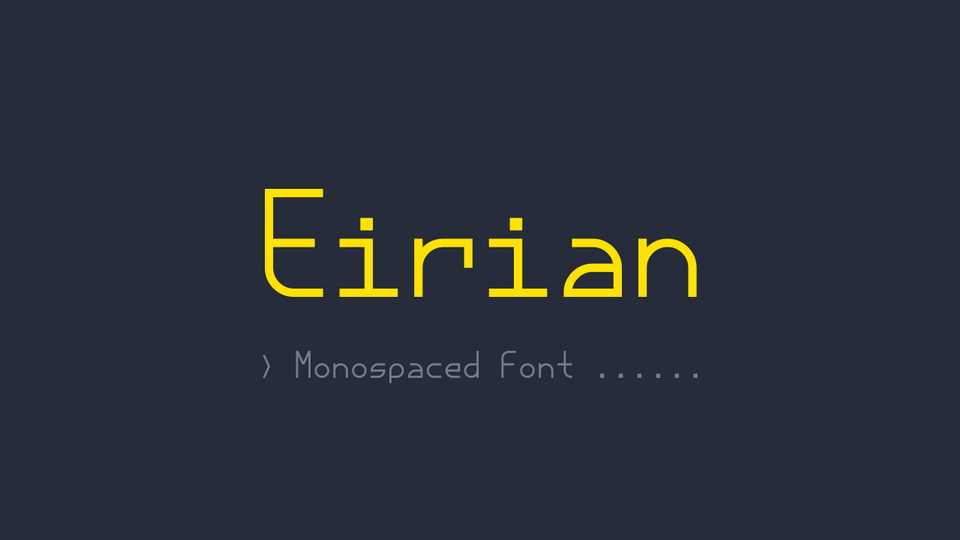
Download Eirian font, a monospaced typeface based on simple geometric shapes. With its high legibility and flexibility Eirian font is suitable for coding, UI, games, terminals and so on.